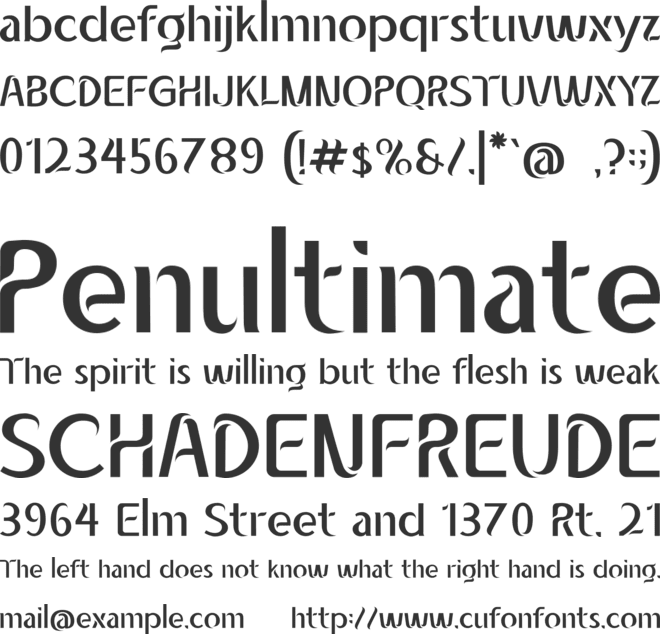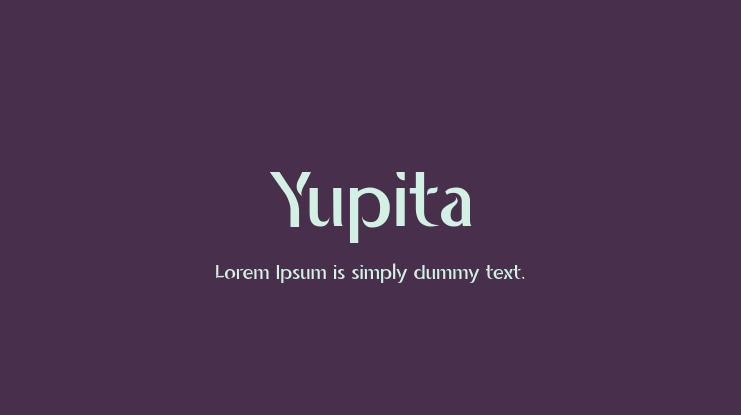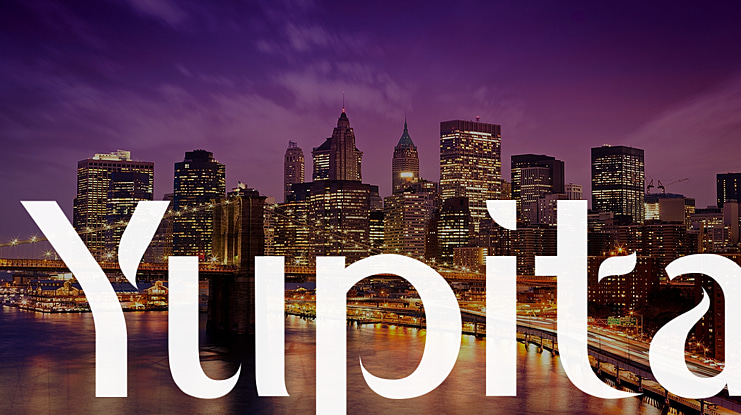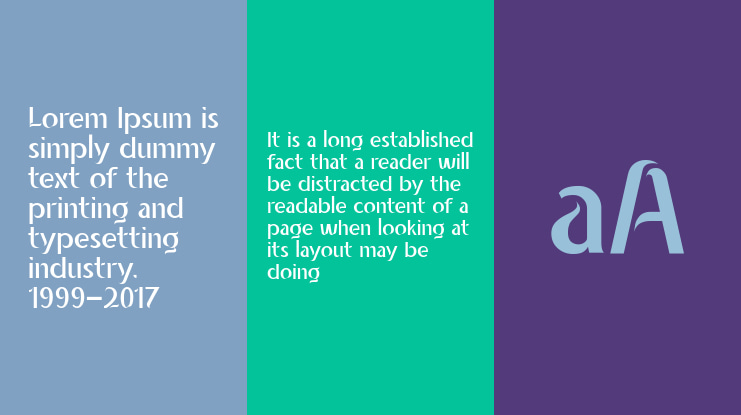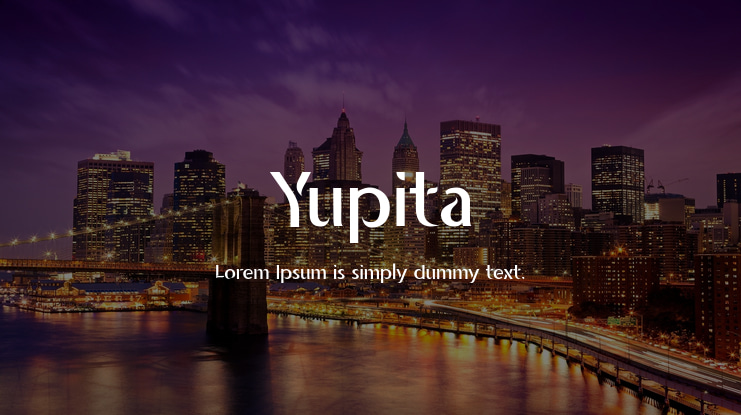
Yupita Font
Yupita is a stylish font today, a mix of classic and contemporary typography. The authenticity of this font will turn any creative ideas into something standout! Yeah, A beautiful complete set of glyphs from a logotype design contest that we didn’t win.
Yupita Font is suitable for variety of branding projects, logos, parties and events, social media posts, advertisements, and so much more.
Type Designer : Furqan Sudirman